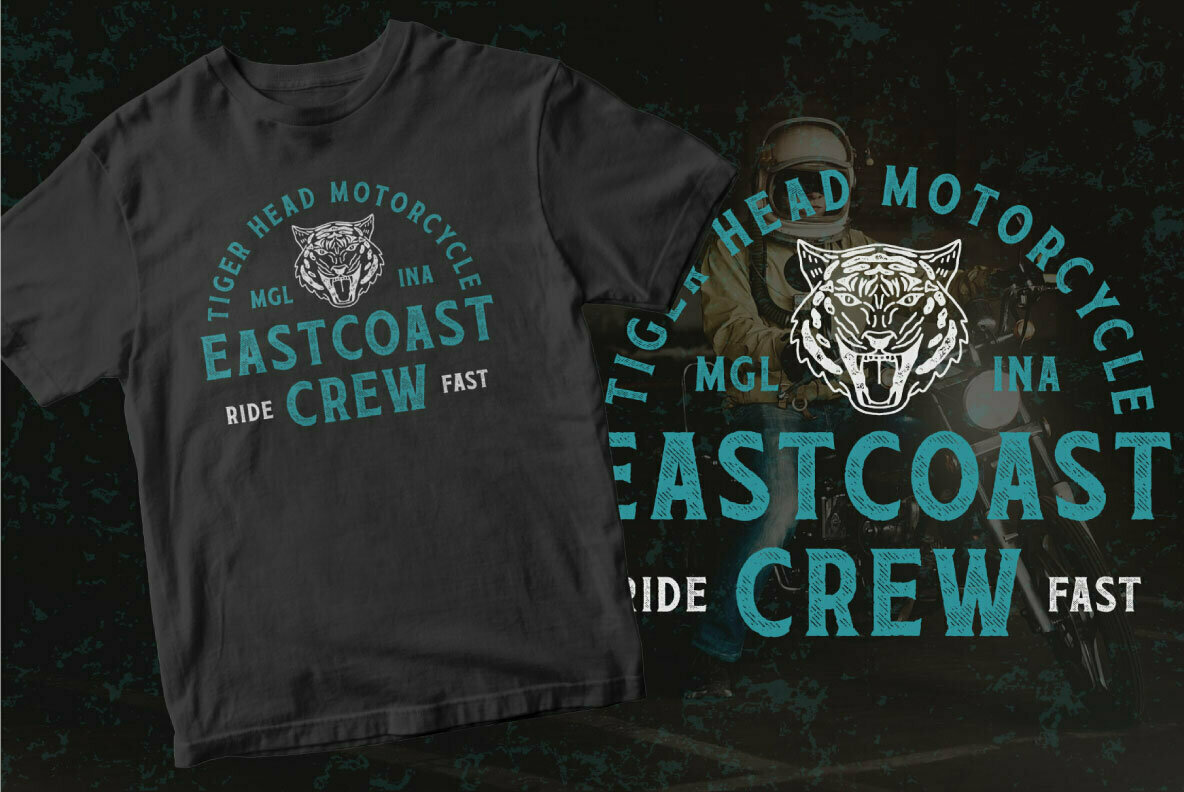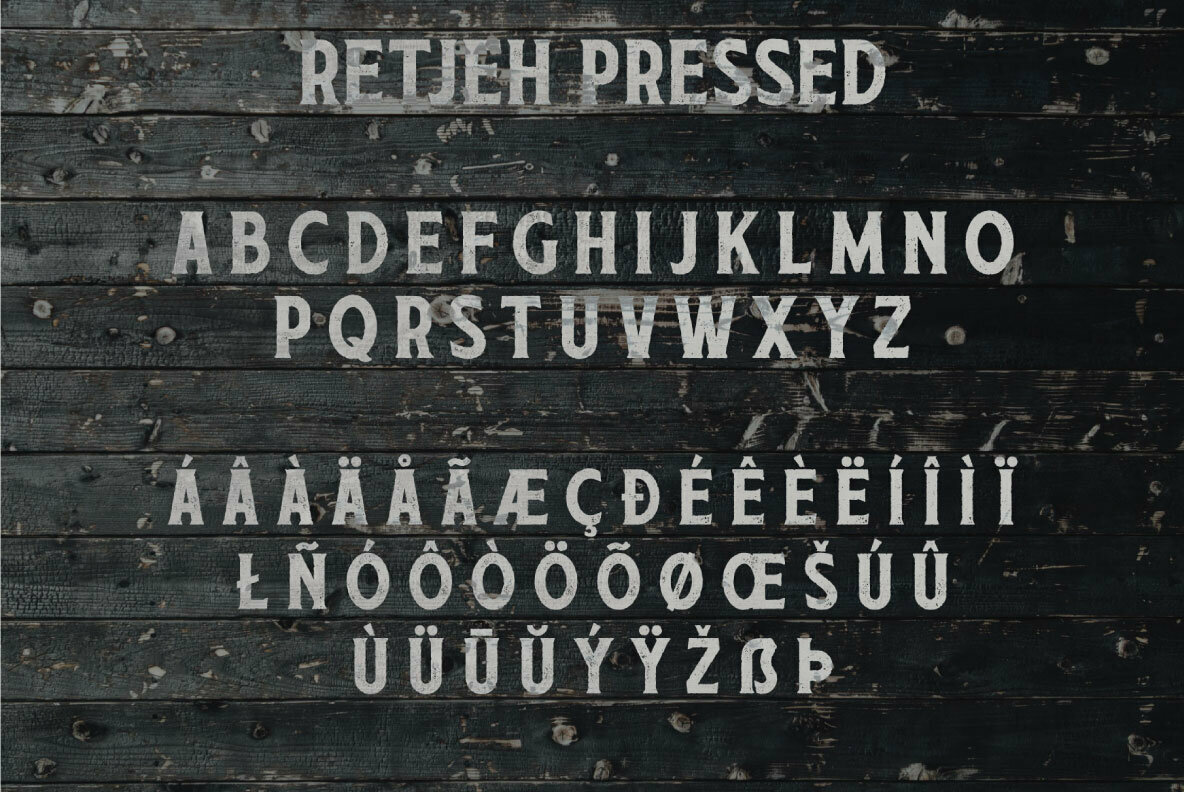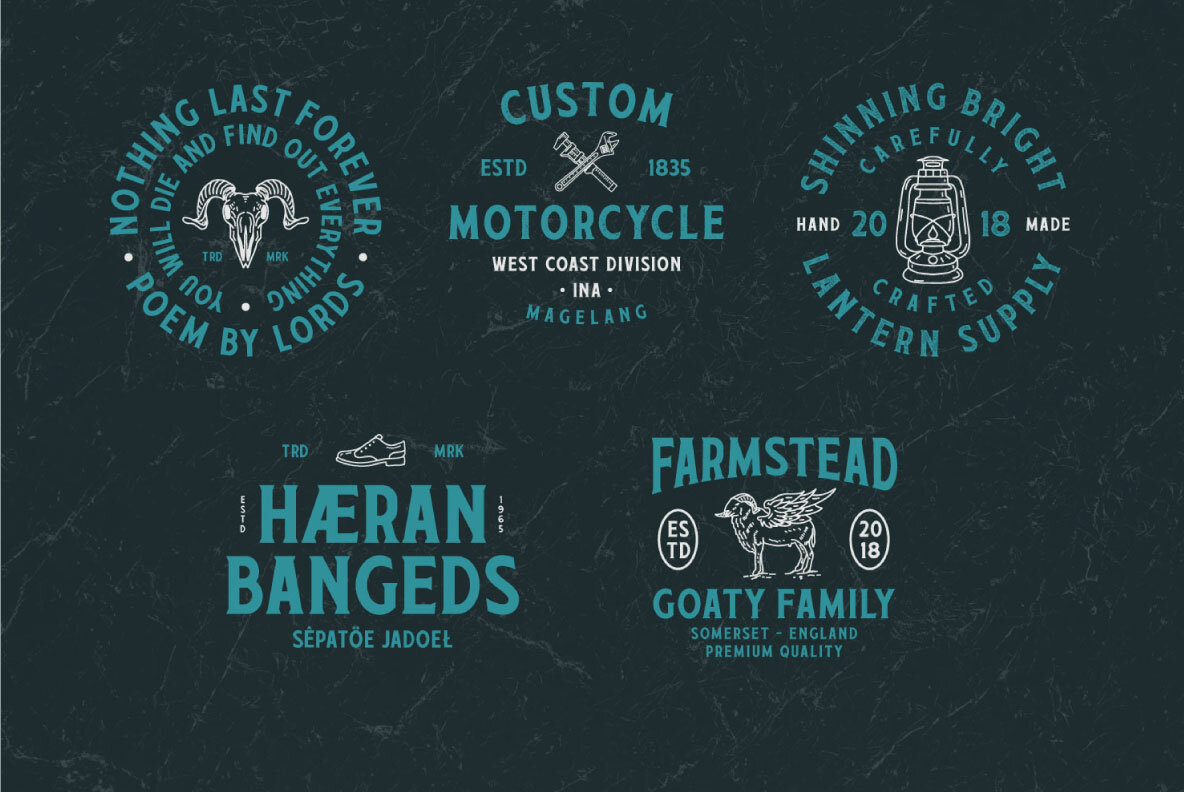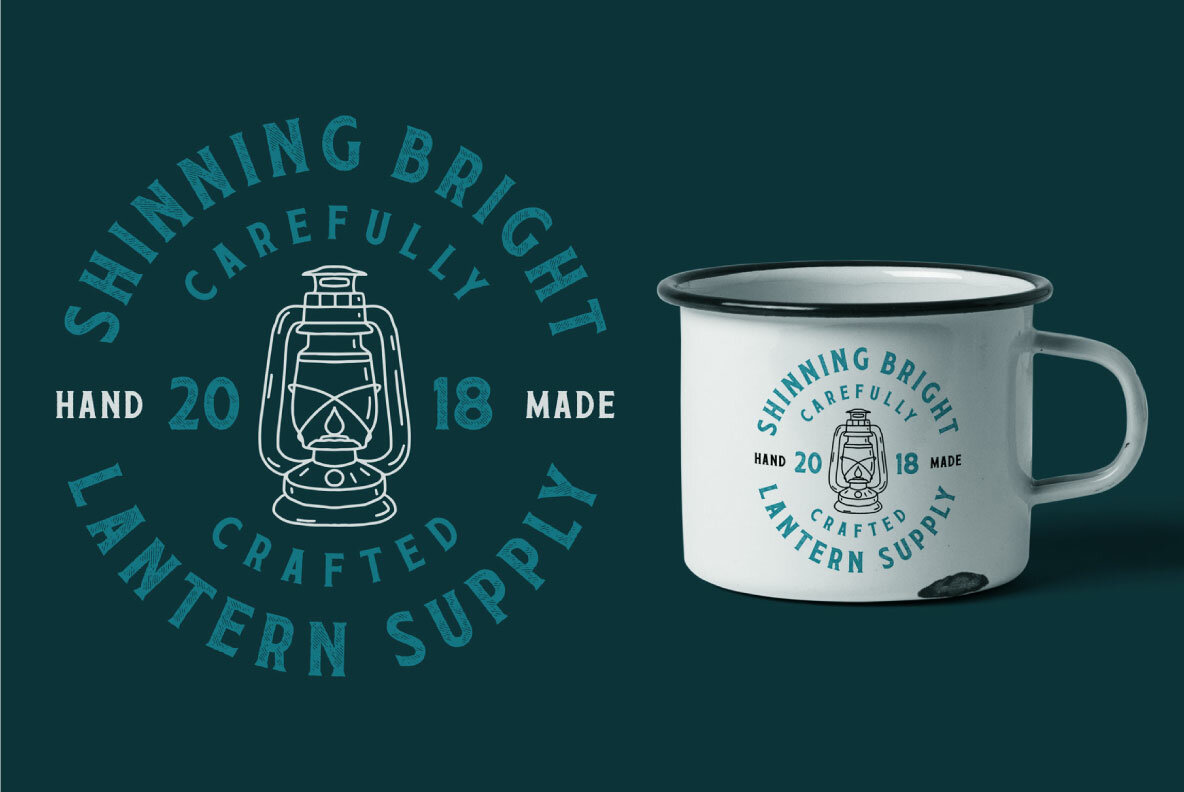
Retjeh Font
Retjeh is a handcrafted vintage font, comes in Six styles there are Pressed, Lined, Dotted, Rough, Regular, and Sans. That makes Retjeh perfect for any Vintage styles as you needed. This font come with only All Caps, Number, and also Multilingual characters.